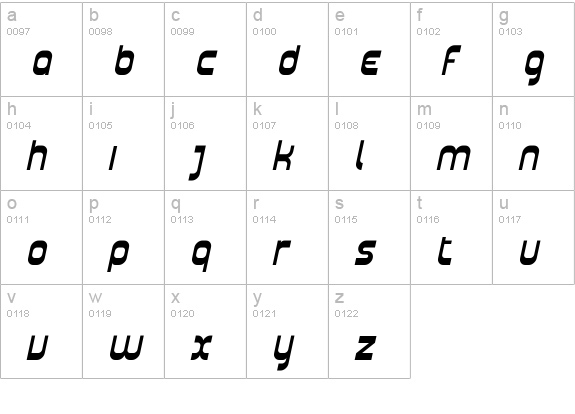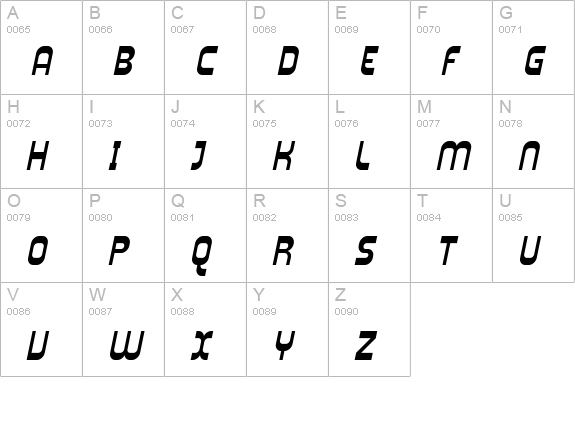
Plasmatica Italic is a distinctive, italic variant in the Plasmatica typeface family \xE2\x80\x94 well suited to design and typography projects.
Plasmatica Italic font is a mesmerizing display of elegance and sophistication. With its sleek and fluid strokes, this font exudes a sense of modernity and innovation. Designed for those who seek a touch of uniqueness in their designs, Plasmatica Italic is a perfect choice for logos, headlines, and creative projects that require a touch of artistic flair. What makes Plasmatica Italic even more enticing is the fact that it is available for free. Yes, you read that right – this captivating font can be downloaded at absolutely no cost from FontsMarket.com. This means that designers and creatives around the world can enjoy the beauty and versatility of Plasmatica Italic without breaking the bank. Whether you're working on a personal project or a professional endeavor, Plasmatica Italic font will elevate your designs to new heights. Its italicized style adds a touch of dynamism and movement, making it ideal for conveying a sense of energy and excitement. The carefully crafted letterforms are both legible and visually stunning, ensuring that your message is delivered with utmost clarity and impact. With Plasmatica Italic font, you have the freedom to experiment and explore the boundaries of design. Its versatility allows it to seamlessly adapt to a wide range of contexts, making it suitable for various applications such as branding, packaging, advertising, and more. The possibilities are truly endless with this remarkable font. So why wait? Embrace the beauty of Plasmatica Italic font and let your creativity soar. Download it for free today at FontsMarket.com and unlock a world of possibilities for your designs.